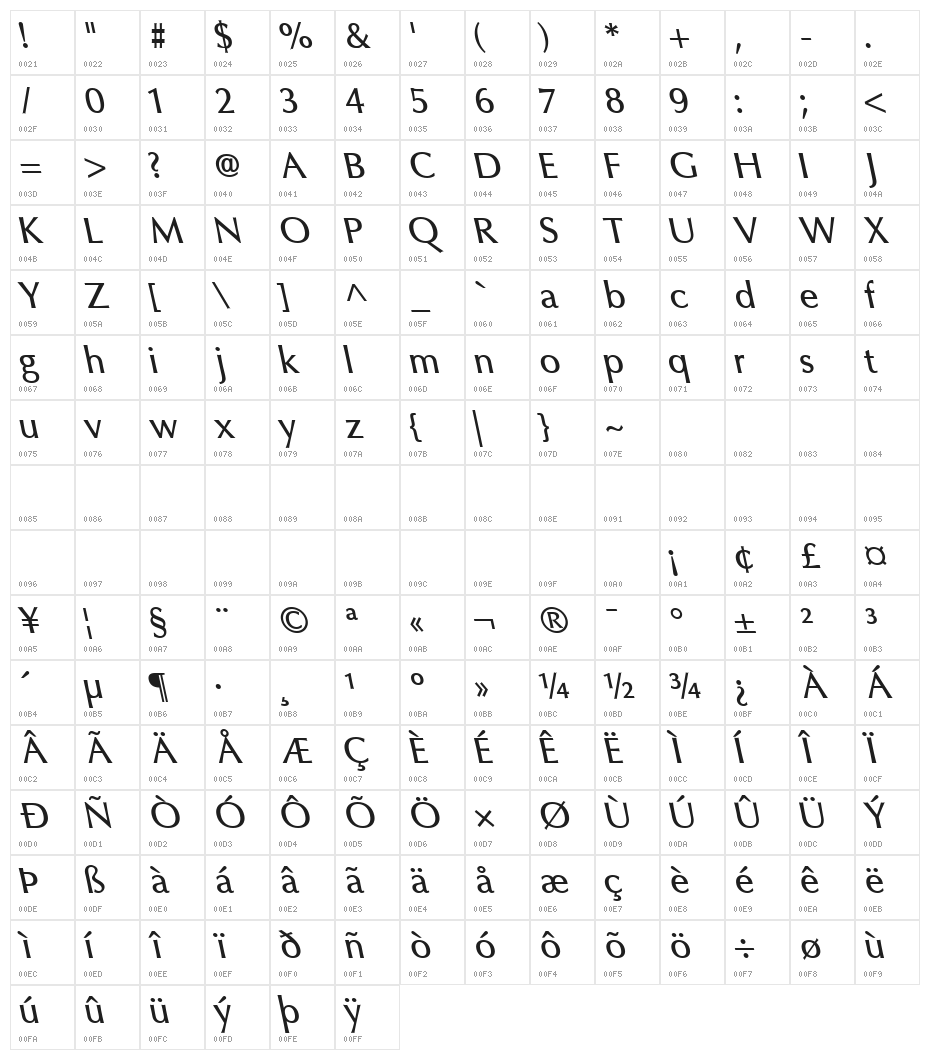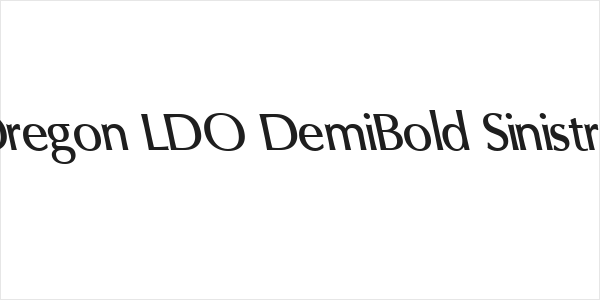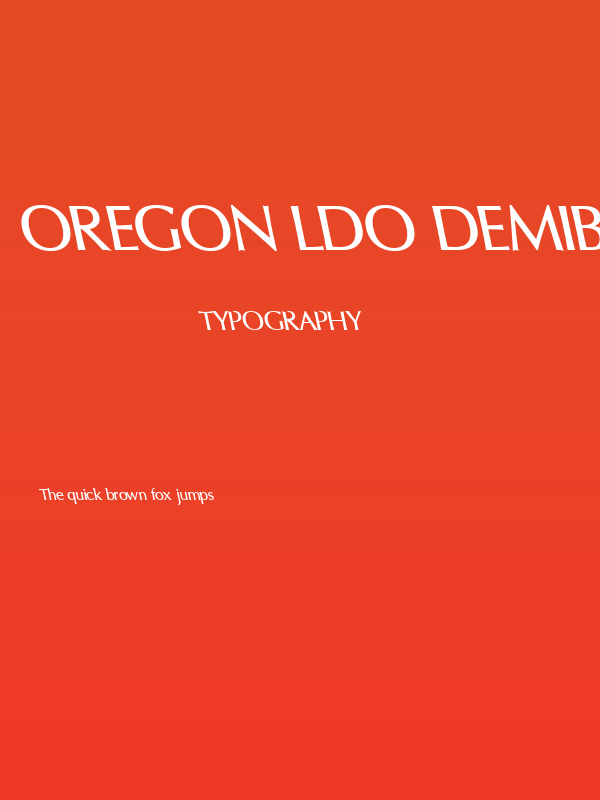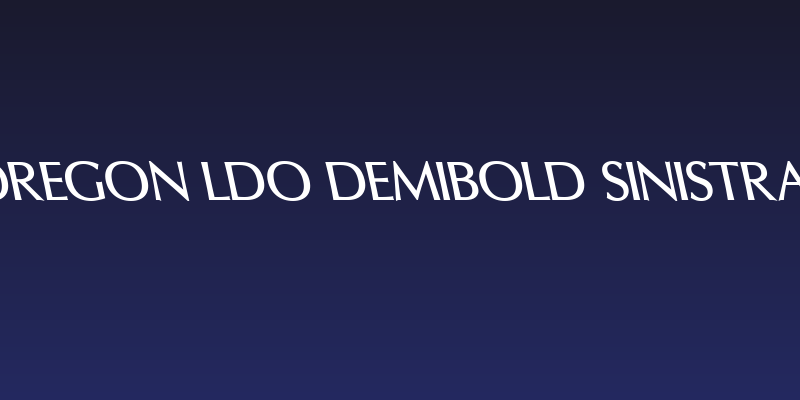
Oregon LDO DemiBold Sinistral Font
Oregon LDO DemiBold Sinistral Description
This font features a clean and modern design with a slight slant, giving it a dynamic and forward-moving appearance. The characters are well-proportioned, with a consistent stroke width that provides a balanced look. The uppercase letters are bold and assertive, while the lowercase letters maintain a friendly and approachable feel. The numerals are clear and easy to read, making them suitable for various applications. Special characters are included, adding versatility to the font's use. The overall style is contemporary, making it ideal for projects that require a modern and professional touch.
Use CaseHeadlines, Logos, Branding
Proposed ProjectsIdeal for branding, advertising, headlines, and digital content that requires a modern and professional look.